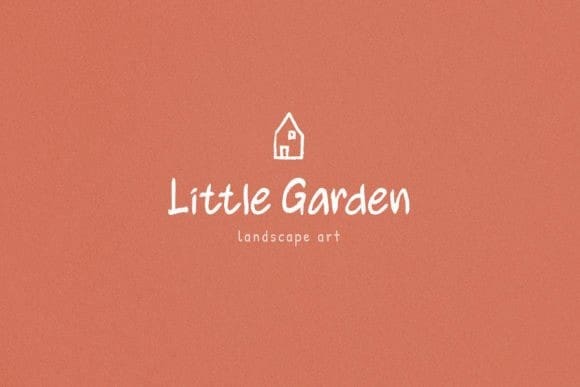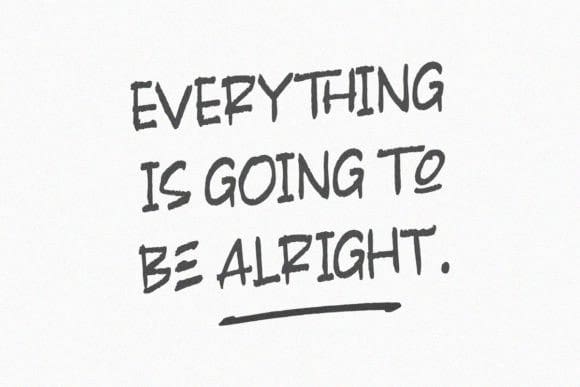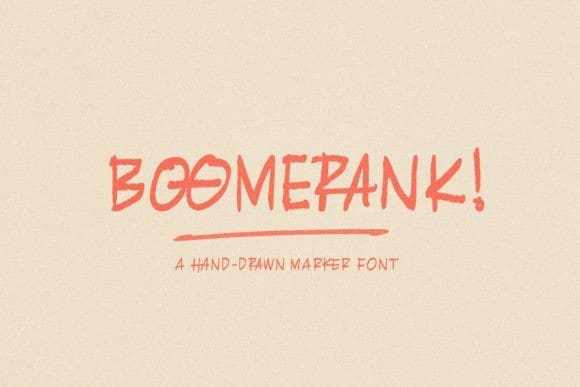
Boomerank Font
Boomerank Font is a creative dry marker handwriting font. This font is perfect for projects like logotypes, comics, headlines, invitations, quotes, menu design, branding, clothing, print ads, and some designs that need natural handwriting with dry marker effects.